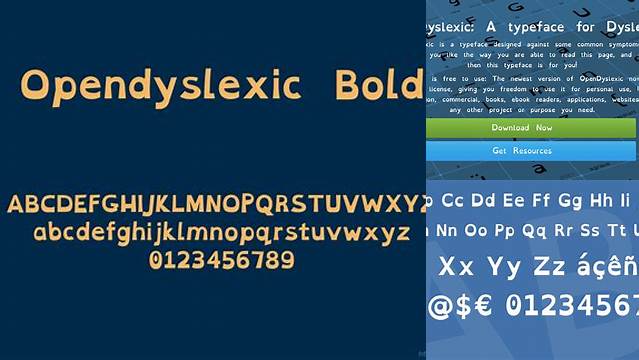
Hey everyone! Ever struggled to read text online or in print? You're not alone! For people with dyslexia, reading can be a real challenge. That's where the OpenDyslexia font comes in. It's designed to make reading easier and more enjoyable for individuals with dyslexia. And the best part? You can get the OpenDyslexia font free download! In this article, we'll dive into everything you need to know about OpenDyslexia, including how to download it, why it's effective, and where you can use it. Let's get started, shall we?
OpenDyslexia: What Is It and Why Does It Matter?
Alright, guys, let's break down what OpenDyslexia is all about. It's a font specifically created to help people with dyslexia read more easily. Dyslexia affects how the brain processes written language, and it can make it difficult to distinguish between letters, track lines of text, and understand what you're reading. OpenDyslexia tackles these challenges with its unique design features. The font is created by Abelardo Gonzalez, who experienced dyslexia himself. He designed this font based on research and his own experience in order to increase the readability of the text for people with dyslexia. The font includes several unique characteristics, for example, the heavy-weighted bottom that is designed to make the letter more easily recognizable and make it harder for the readers to flip the letters. These are just a few of the characteristics, and you will get the full understanding after you start to use this font. The font is available in several weights, making it suitable for different needs and preferences. By using OpenDyslexia, you can significantly improve the reading experience for people with dyslexia. So, if you're looking to make your documents or websites more accessible, OpenDyslexia is an excellent choice. We'll cover how to download it in the next section. The font is open source, meaning it's free to use and distribute, which makes it accessible to anyone who needs it. OpenDyslexia is a game-changer for making content accessible and inclusive.
Key Features of OpenDyslexia Font
The key to OpenDyslexia's effectiveness lies in its design. The font incorporates several features that cater specifically to the challenges faced by people with dyslexia. One of the primary design elements is the use of a heavier base for each letter. This weighted bottom helps to anchor the letters visually, making it easier for the reader to distinguish between similar letter shapes, like 'b' and 'd' or 'p' and 'q'. The slight slant in the font, along with the unique shapes of each letter, also helps to reduce letter confusion. Another important characteristic is the increased space between letters and words. This extra spacing helps to prevent letters from running together, making it easier for the eyes to track individual words and lines of text. By focusing on these key design elements, OpenDyslexia aims to reduce the visual stress associated with reading and make it a more comfortable and enjoyable experience. The font also uses a simple, sans-serif style, which contributes to its clarity and readability. This type of font is a great option for people with dyslexia to make reading an enjoyable experience. The careful consideration of these aspects is what sets OpenDyslexia apart and makes it a valuable tool for improving readability. It's not just about aesthetics; it's about functionality and accessibility. The font has many benefits, so let's dive deeper into how to download OpenDyslexia!
Where Can You Use the OpenDyslexia Font?
So, you've got the OpenDyslexia font free download, now what? This font is incredibly versatile, and you can use it in a variety of applications to improve readability. First off, you can use it in your word processors, such as Microsoft Word, Google Docs, and LibreOffice. This is perfect for creating documents, reports, and any other written content. Just select OpenDyslexia from your font options, and your text will instantly become more dyslexia-friendly. Also, you can use it for web design. Many web designers and developers incorporate OpenDyslexia into their websites to enhance the reading experience for visitors with dyslexia. This involves setting the font style in your website's CSS. Besides these, you can also use it for educational materials. If you're a teacher or student, you can create handouts, presentations, and study guides in OpenDyslexia to make learning materials more accessible. It's suitable for creating presentations using software like PowerPoint or Google Slides, where you want to ensure your slides are easy to read. You can also use it for creative projects, such as designing posters, flyers, and even custom graphics. You can also use it for social media posts to make your content more inclusive. This is a great way to increase accessibility. In short, the possibilities are endless. Wherever you need to make text more readable, OpenDyslexia can be a valuable tool.
OpenDyslexia: Applications Across Different Platforms
Let's explore the versatility of OpenDyslexia across different platforms, guys! You can use this font practically everywhere. The OpenDyslexia font free download is a game-changer for improving readability in your everyday tasks. First, for the desktop environment, you can use it in Microsoft Word, Google Docs, and Apple Pages. This allows you to write letters, reports, and more using a dyslexia-friendly font. It also supports different operating systems, so you can use it on Windows, macOS, and Linux. If you're into web design, you can use OpenDyslexia to create websites and blogs that are inclusive and accessible. This can be done using CSS to set the font for your site. For those in education, you can use the font to create more accessible educational materials. This includes handouts, presentations, and worksheets. It can also be used on e-readers. If your e-reader supports custom fonts, you can load OpenDyslexia onto it for a better reading experience. In graphic design, you can use OpenDyslexia in tools like Adobe Photoshop, Illustrator, and Canva. This way, you can create accessible posters, social media posts, and more. Even in software development, you can integrate OpenDyslexia into the UI of your app to make it more user-friendly. This is great for accessibility. The font has various use cases.
The Benefits of Using OpenDyslexia
Let's dive into the awesome benefits of using OpenDyslexia. First and foremost, it significantly improves readability for people with dyslexia. The unique design of the font helps to reduce visual stress and make reading a more comfortable and enjoyable experience. This can lead to increased comprehension and better information retention. By using OpenDyslexia, you're creating more accessible content. This means you're making your documents, websites, and other materials easier to read for a wider audience. This promotes inclusivity and ensures that everyone can access the information they need. OpenDyslexia can boost productivity. When reading is easier, individuals can read faster and with less effort, leading to improved efficiency in their daily tasks. When you make a document using this font, you can promote inclusivity. This means that you're creating an environment where everyone can access the information they need, and it can reduce stress when reading. You can also try this to increase learning and improve comprehension. Many users report that the font helps them focus and understand text better. Let's dive into the benefits and advantages of using OpenDyslexia!
Enhancing Readability and Comprehension with OpenDyslexia
Okay, guys, let's talk about how OpenDyslexia enhances readability and comprehension. The font is a fantastic tool for making reading easier, especially for those with dyslexia. One of the primary benefits is its ability to reduce visual stress. The unique design of the font, with its weighted bottoms and distinct letter shapes, helps to prevent letters from blurring together. This is a common problem for people with dyslexia. Also, it enhances the reading experience by making it less tiring. By reducing visual fatigue, the font allows readers to focus for longer periods. This leads to increased comprehension. Readers report that they can understand the material better when using this font. By decreasing the cognitive load of reading, OpenDyslexia frees up mental resources for comprehension. This means the reader can focus on understanding the text rather than struggling to decipher the words. The font also reduces the need for re-reading, saving time and effort. This efficiency boost is particularly important for students and professionals who need to read a lot. By using OpenDyslexia, you can create a more inclusive learning environment. This font provides an accessible tool for people with dyslexia to learn. So, if you're looking to improve the reading experience and make your content more accessible, OpenDyslexia is a great option!
Final Thoughts on OpenDyslexia: Make Reading Easier
As a final thought, let's reiterate the incredible potential of OpenDyslexia. This isn't just another font. It's a tool. It can make reading easier for those who struggle. With OpenDyslexia font free download, you have the power to create more inclusive content. Think about it: every document, website, or presentation you create in OpenDyslexia is a step towards making information accessible to all. This isn't just about aesthetics; it's about empathy. It's about understanding the challenges that people with dyslexia face. By using this font, you're not just changing the way your text looks; you're changing the way people experience the world. Start using OpenDyslexia today. You can make a difference. You can promote inclusivity. You can make reading easier and more enjoyable for everyone. Go ahead, download the font, and see the impact it can have.